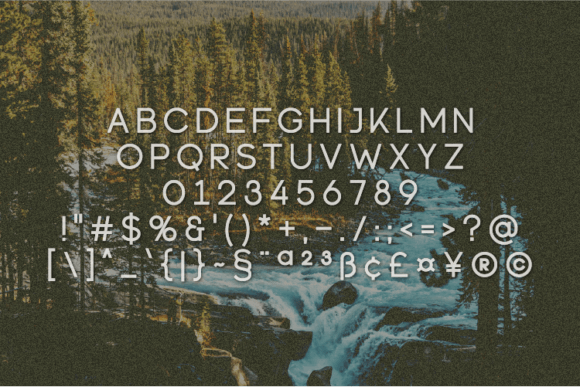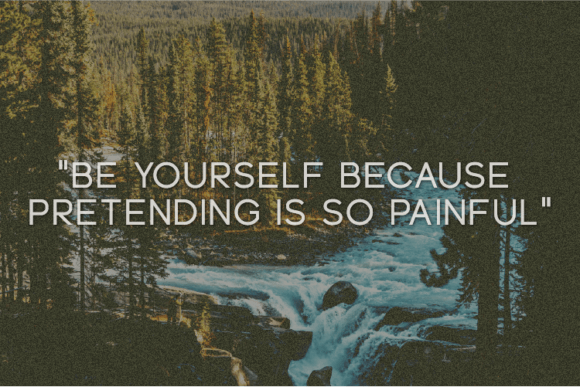
Introduction to Deounder Font
Remember that moment when a simple design element elevates your entire creative project? For designers, it’s those little moments of magic that make all the difference. And when it comes to adding a touch of sophistication to your work, there’s one font that stands out from the crowd: the Deounder Font.
This stunning all-caps sans serif font is more than just a pretty face – it’s a versatile design resource that’s perfect for logos, branding, web headings, and so much more. With its smooth lines, subtle contrast, and elegant style, the Deounder Font is a high-quality addition to any creative project. Whether you’re a seasoned pro or just starting out, this font is a must-have for any designer looking to take their work to the next level.
Key Features of Deounder Font
- Perfect for designers and artists looking for a unique and stylish font
Honest Review: Deounder Font
As a designer, I’m always on the lookout for high-quality design resources to elevate my creative projects. Recently, I had the opportunity to try out the Deounder Font, and I’m excited to share my thoughts with you.
- ✨ Unique and stylish design: The Deounder Font has a distinctive look that sets it apart from other fonts. It’s perfect for projects where you want to add a touch of sophistication.
- ⚠️ Limited character set: The Deounder Font only includes a limited set of characters, which may not be ideal for projects that require a wide range of typography.
- ⚠️ Not suitable for body text: While the font is perfect for headings and titles, it may not be the best choice for body text due to its unique style.
Overall, I’m impressed with the Deounder Font’s unique design and high-quality download. However, its limitations may make it less suitable for certain projects. If you’re looking for a stylish font for headings or titles, the Deounder Font is definitely worth checking out.
Deounder Font Overview
The Deounder Font is a high-quality, free design resource ideal for creative projects. It features a transparent background, making it versatile for various design applications.
Tips for Getting the Most Out of Deounder Font
Experiment with different font sizes, colors, and styles to enhance the visual appeal of your design. You can also combine Deounder Font with other design elements to create a unique look.
The Deounder Font is suitable for various design applications, including social media graphics, business cards, and presentations. Its transparent background makes it easy to customize and integrate with other design elements.